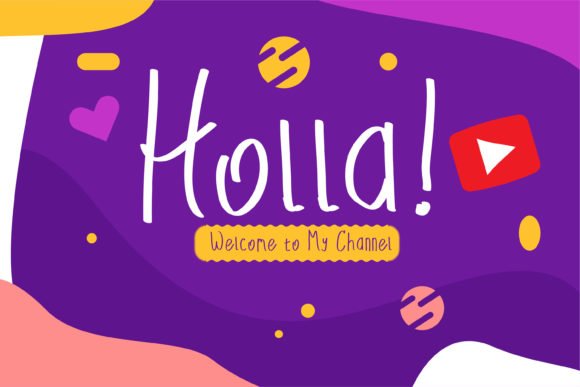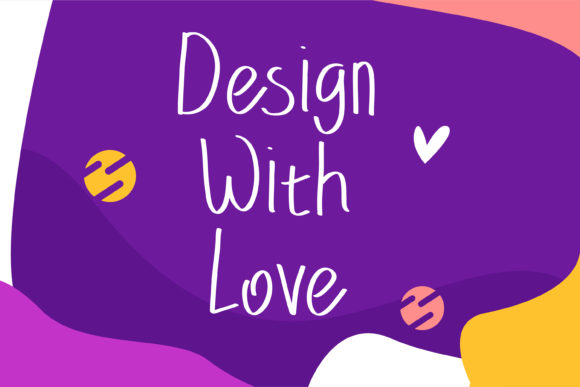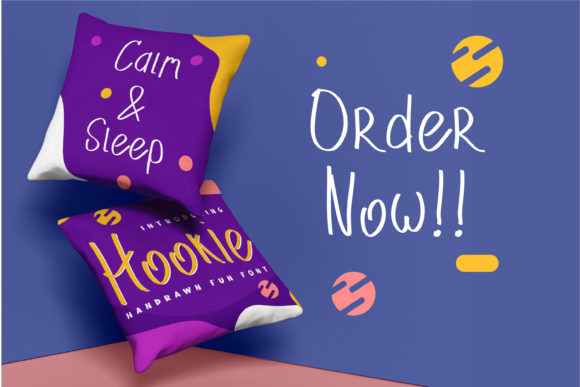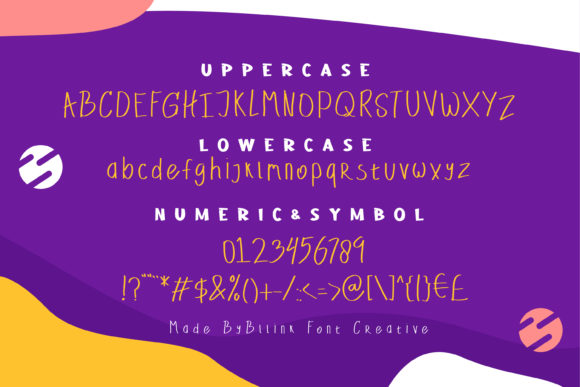
Introduction to Hookie Font
Remember that moment when you’re brainstorming ideas for a new project, and you stumble upon the perfect font? It’s like a spark of creativity ignites, and suddenly everything falls into place. For many designers, that moment often involves the Hookie Font – a playful and quirky handwritten font that adds a touch of personality to any design.
Whether you’re working on a social media campaign, a blog post, or a fun graphic, the Hookie Font is an ideal choice. Its trendy feel and high-quality design make it a valuable resource for any creative project. Plus, with its transparent background, it’s easy to incorporate into your design without distractions.
As a free download, the Hookie Font is a must-have for designers who want to add a unique touch to their work. So, what are you waiting for? Dive into the world of Hookie Font and explore its endless variations to take your designs to the next level.
Key Features of Hookie Font
- High-quality design: The font features a unique and stylish design that can elevate any project, making it a valuable addition to any designer’s toolkit.
- Transparent background: This font is designed with a transparent background, allowing for seamless integration with various backgrounds and designs.
- Font size and resolution: The font comes in a range of sizes, from 12pt to 72pt, and is optimized for high-resolution displays, making it ideal for use in print and digital projects.
- Unique characteristics: The Hookie Font features a distinctive, hand-drawn style with intricate details and textures, making it perfect for designers looking to add a touch of personality to their work.
Honest Review: Hookie Font
I recently had the chance to work with the Hookie Font, and I must say it’s a fantastic addition to any design project. As a designer, I’m always on the lookout for high-quality fonts that can elevate my work, and Hookie Font definitely delivers.
One of the things that stands out about Hookie Font is its transparent background. This makes it incredibly versatile and easy to use, even for complex designs. Plus, the font itself is simply stunning, with a unique and playful style that’s perfect for creative projects.
- High-quality design with a unique and playful style
- Transparent background for easy use and customization
- Limited font styles available (although this is likely to change as the font continues to develop)
- May not be suitable for all types of projects (e.g. formal documents or corporate materials)
Overall, I’m really impressed with the Hookie Font and would highly recommend it to any designer looking for a fun and versatile font for their next creative project.
Some tips for getting the most out of the Hookie Font include using it in combination with other design elements to create a visually appealing design. Common use cases include creating logos, branding materials, and social media graphics.